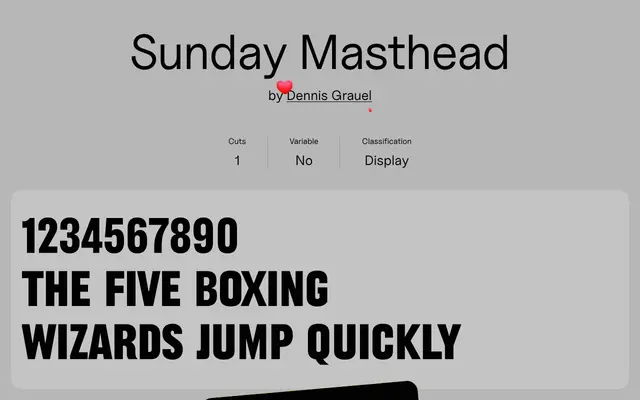
Sunday Masthead
A single-cut display typeface by Dennis Grauel, designed for masthead and headline use, available free under the SIL Open Font License.
Released as a single non-variable cut, Sunday Masthead is a display typeface built for editorial headline work. Its name points directly at its intended use: the bold, characterful setting of newspaper or magazine mastheads. Available free for both commercial and personal projects under the SIL Open Font License 1.1.
Classified as Display by the foundry; the name suggests a masthead-oriented typeface suited to editorial headlines rather than body text.